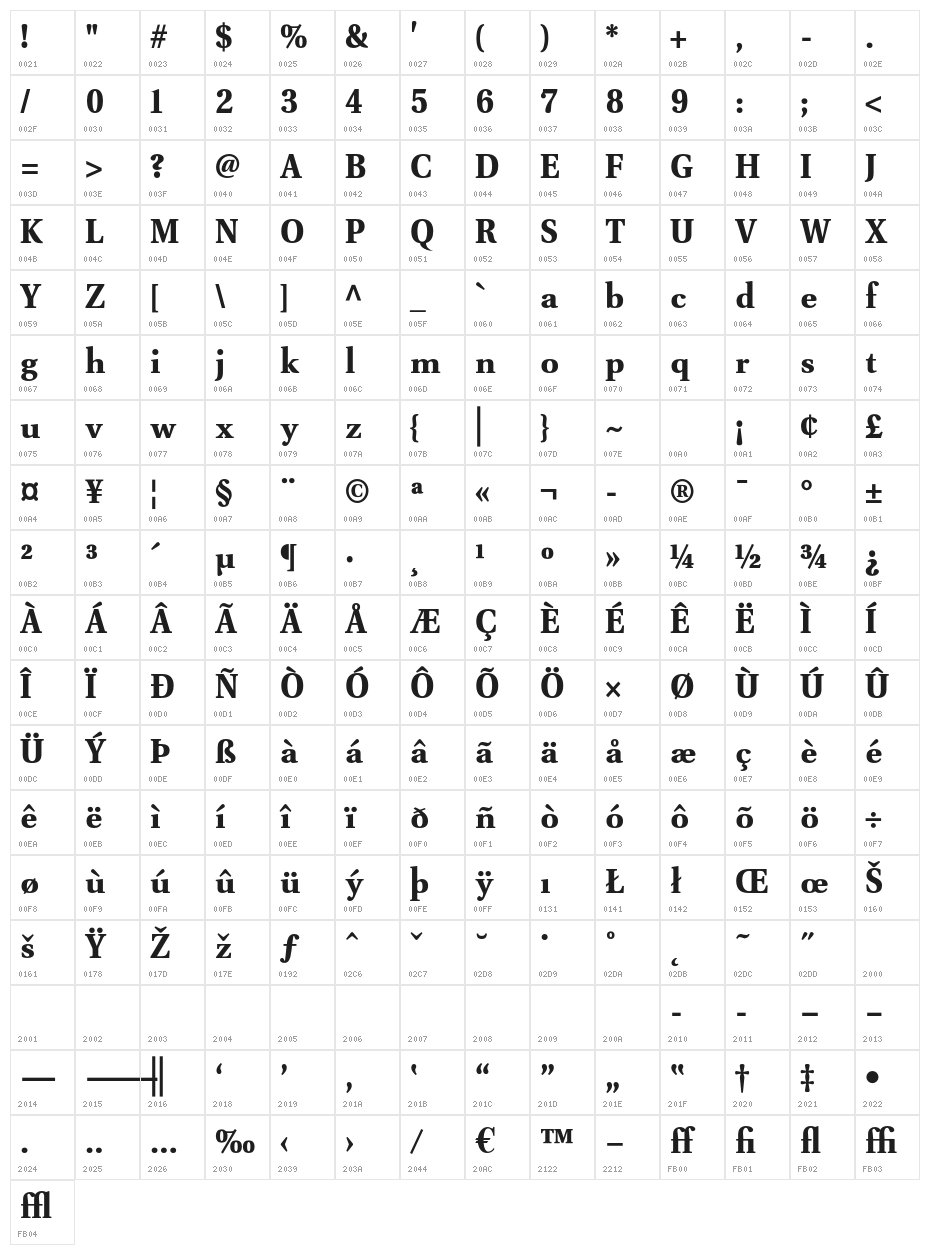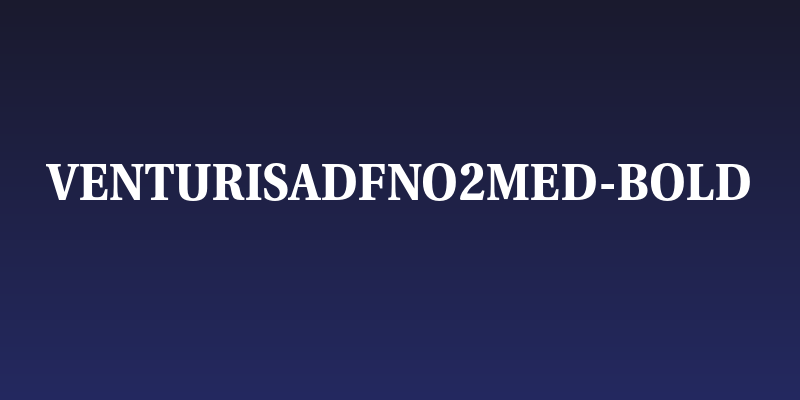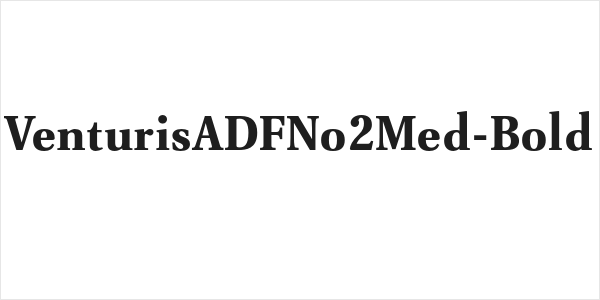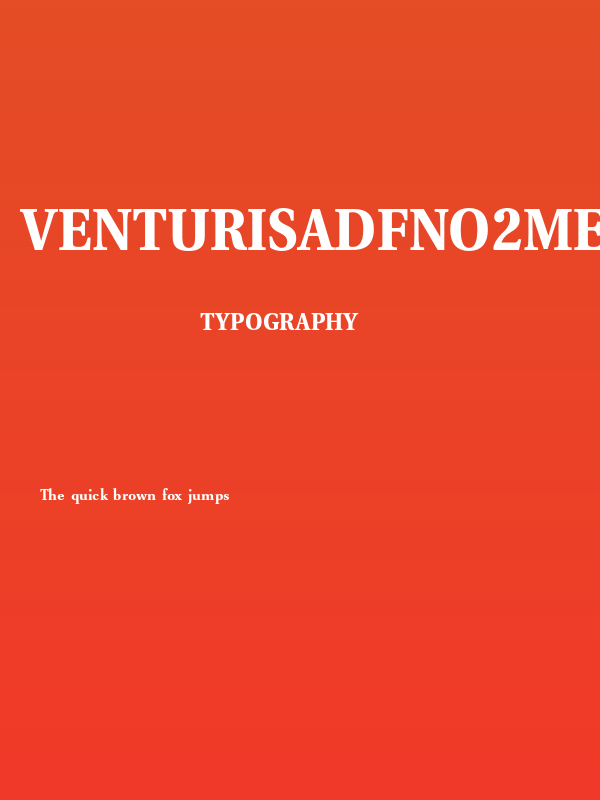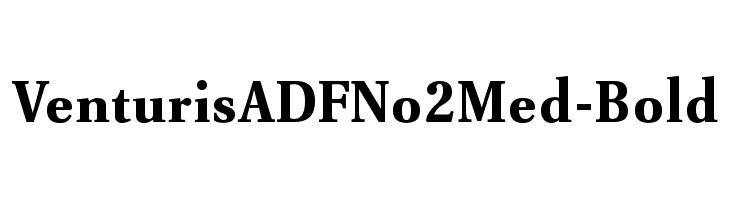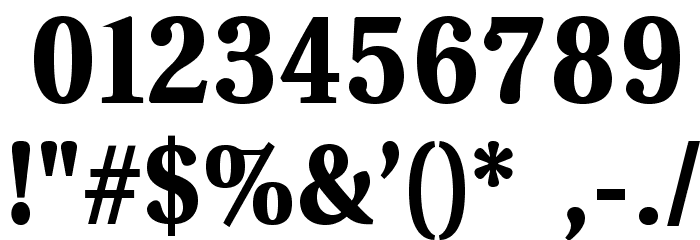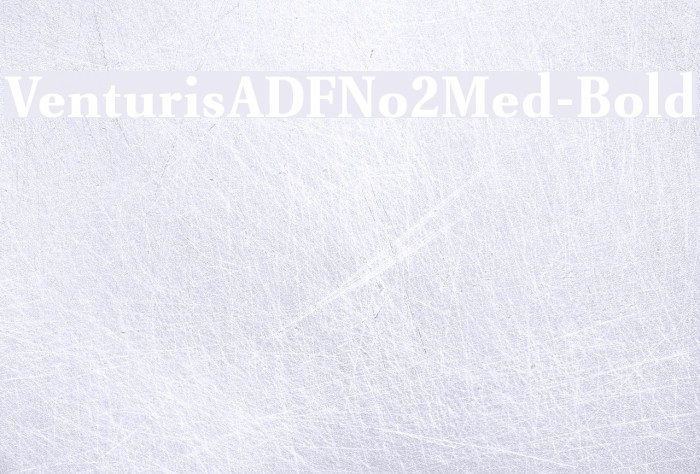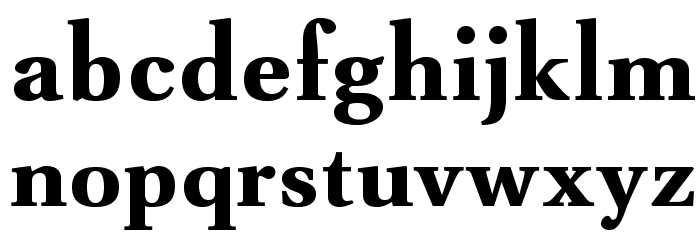
VenturisADFNo2Med-Bold Font
VenturisADFNo2Med-Bold Description
This font exhibits a classic serif style with bold, prominent strokes that convey a sense of authority and tradition. The uppercase letters are well-defined with strong vertical lines and subtle curves, while the lowercase letters maintain a consistent weight that complements the overall boldness. The numerals are clear and robust, making them easily legible. Special characters are designed with the same attention to detail, ensuring uniformity across the typeface. The font's boldness and clarity make it suitable for impactful headlines and titles.
| Overall Style | Classic |
| Proposed Projects | Ideal for book covers, editorial headlines, formal invitations, and branding materials that require a traditional yet bold appearance. |